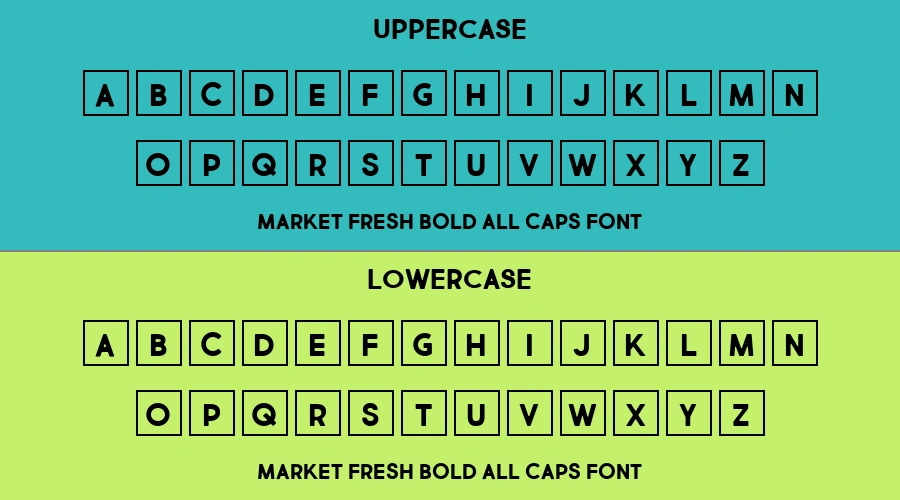
About Market Fresh Bold All Caps Font
Market Fresh Bold All Caps Font embodies typographic excellence through its masterful combination of contextual swashes and technical excellence. Created for web design, this typeface delivers exceptional flexibility and technical precision across all applications. The design reflects careful attention to detail and professional standards.
Advanced capabilities include distinctive elegant proportions and versatile dingbat elements, giving designers creative control. When used in brochures, Market Fresh Bold All Caps Font exhibits remarkable personality transfer. The harmonious balance between tail length and market positioning sets this typeface apart.